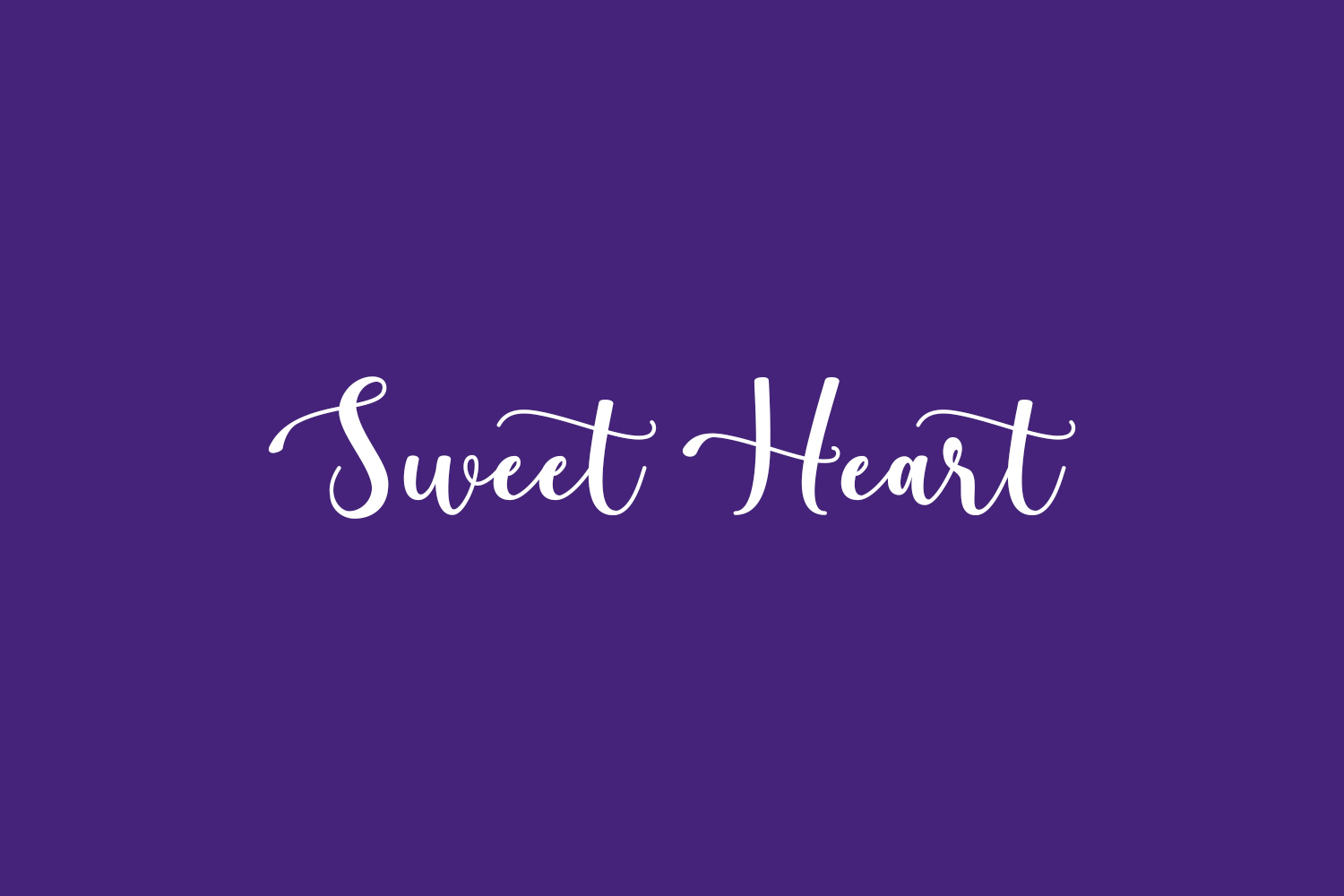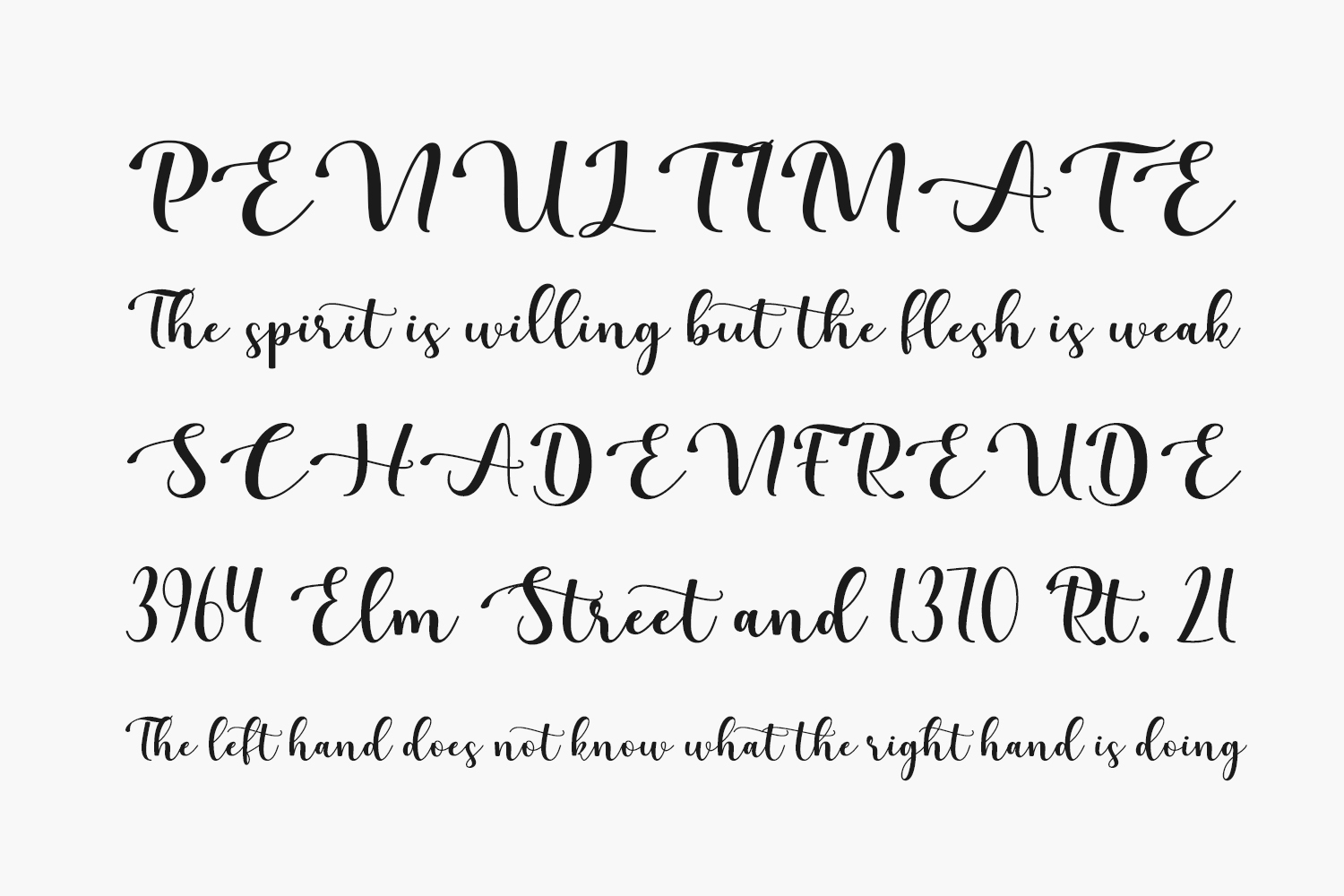
Sweet Heart Free Font is a cute and playful font family (Script, Sans serif, Display, and Dingbats). Incredibly versatile, this font fits a wide pool of designs, elevating them to the highest levels. Sweet Heart was designed by Fillo Graphic and is free for personal use only. Please purchase the full version for commercial use.